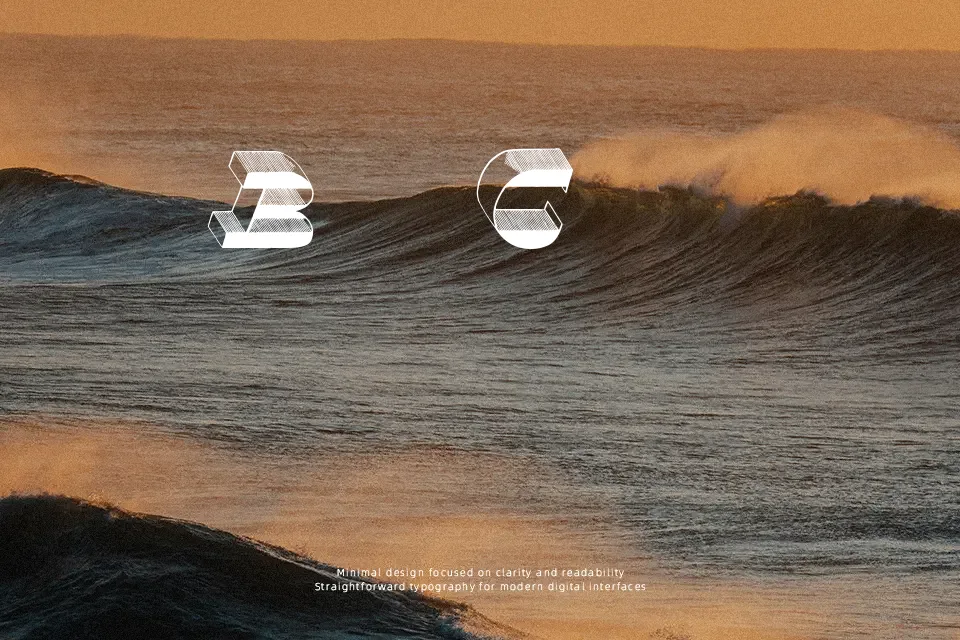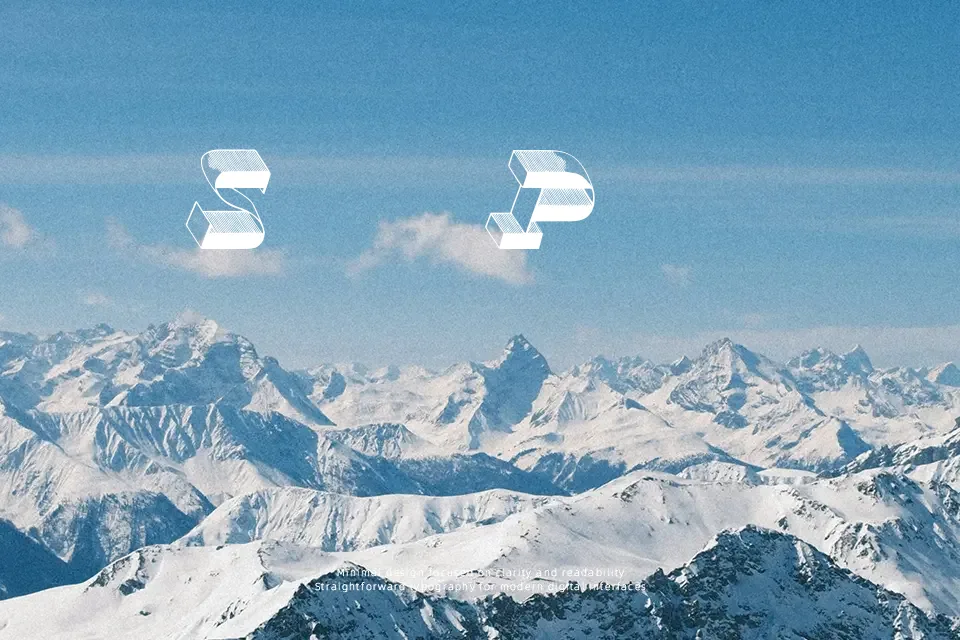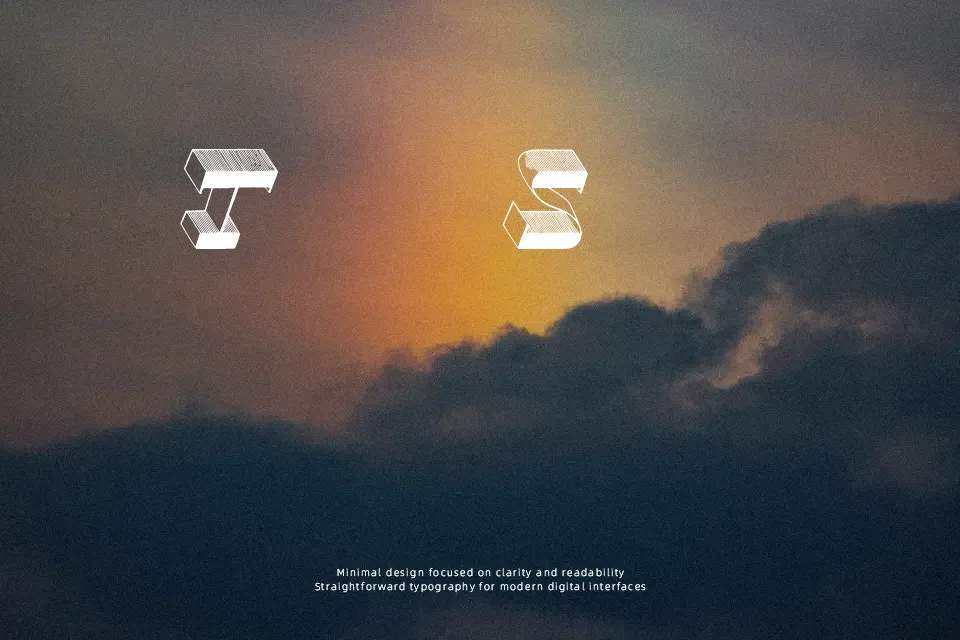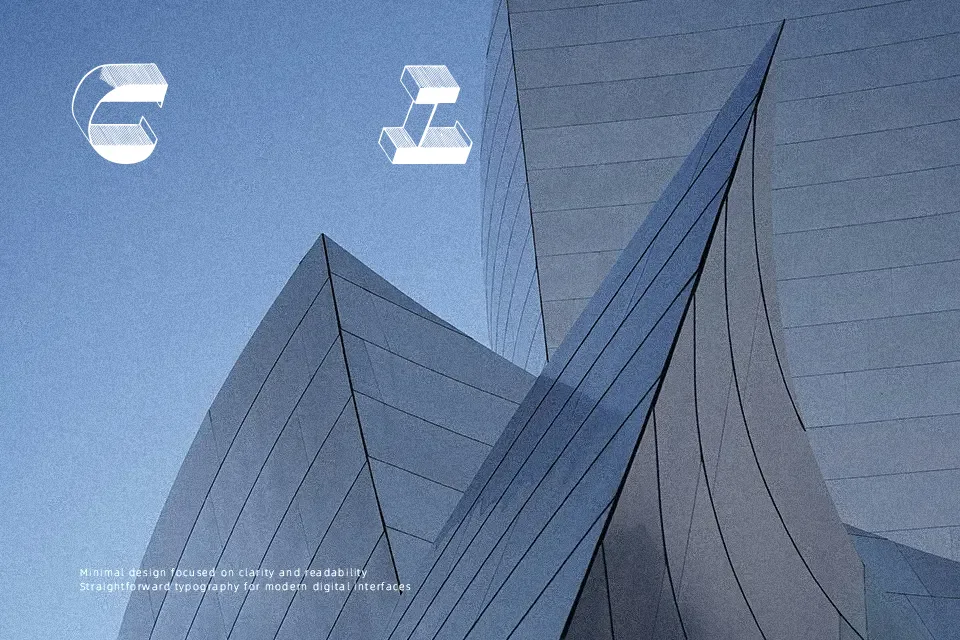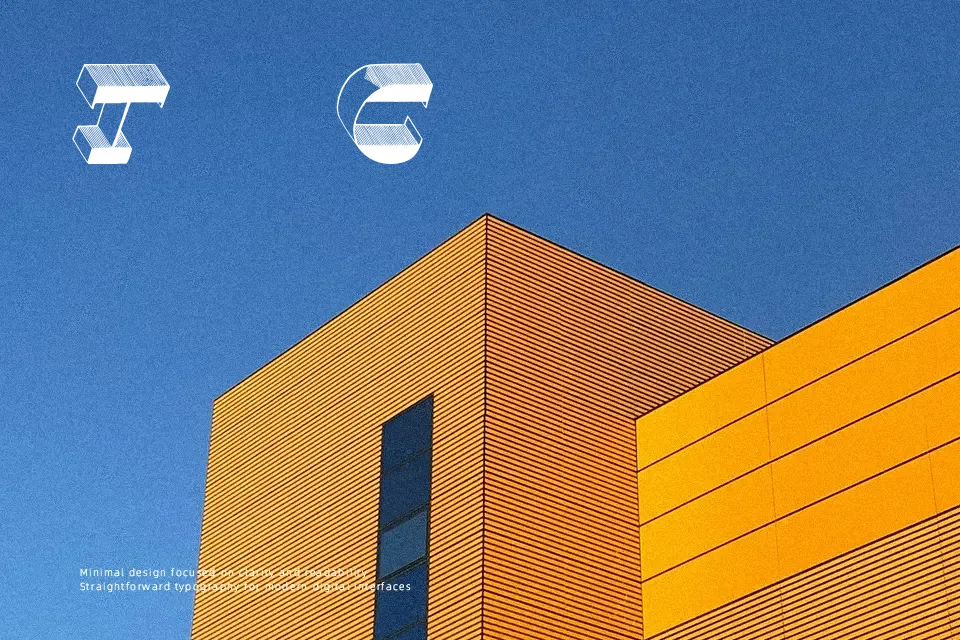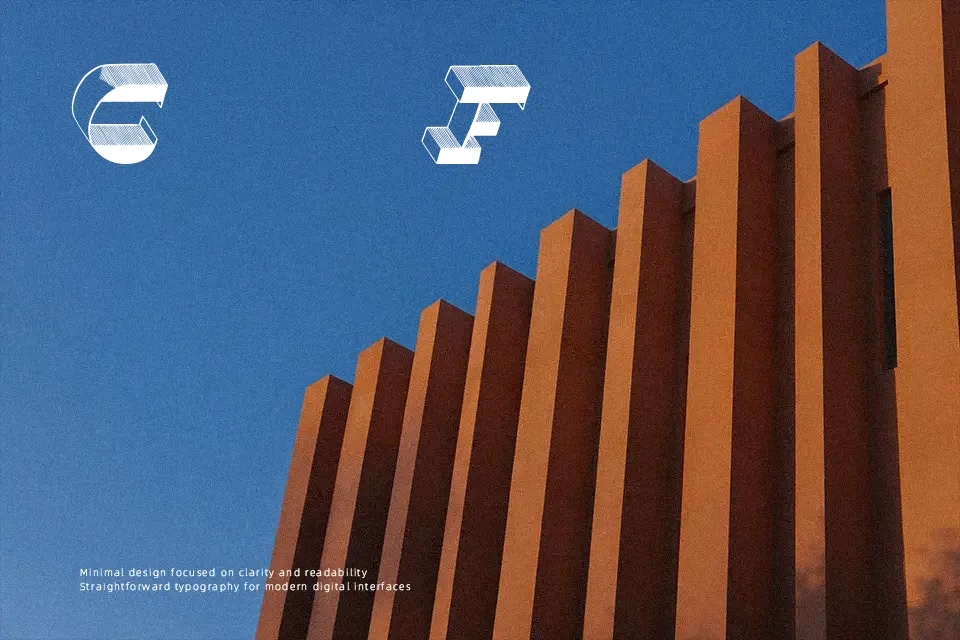
Top View Font
Designed by imagex
Top View Font presents an unusual dimensional construction built with heavy strokes and an overhead perspective projection. Each glyph features substantial weight and broad horizontal proportions, creating an unmistakable sense of architectural volume across the character set. Generous spacing between the letterforms helps preserve individual character silhouettes despite the complex internal facets and angled depth lines. The design excels in striking display contexts such as music festival flyers, stylized logo marks, and video game titles. However, the intricate optical planes significantly hinder continuous reading at standard text sizes. Small captions lose structural clarity rapidly, making the typeface impractical for body copy and editorial layouts.
Best For: retro arcade game titles, music festival posters, streetwear apparel graphics, gaming logos
Not Ideal For: long paragraph text, mobile user interface labels, dense editorial layouts, small caption print
Perfect for 3d, headline, and logo, with a bold and decorative style.